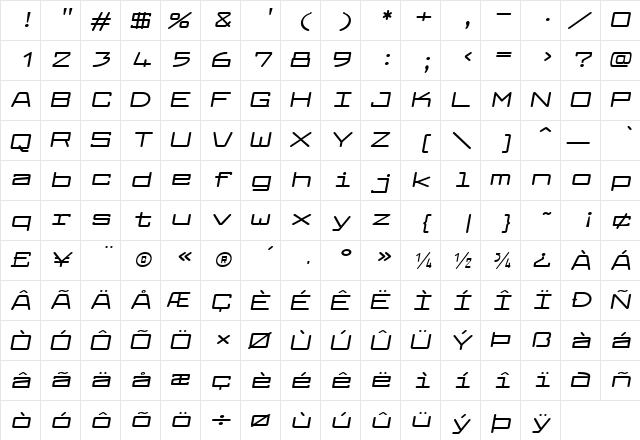
Larabiefont Xtrawide Bold Italic Font Preview
Design Context for Larabiefont Xtrawide Typeface
Larabiefont Xtrawide is a composed and adaptable typeface that performs quietly and consistently across a wide range of design contexts. The slanted form adds forward momentum and visual energy. The heavy weight commands attention and anchors typographic hierarchies.
Pro Tip: Try Larabiefont Xtrawide for annotation and caption copy alongside an upright companion — the contrast in angle creates a dynamic but ordered typographic system.